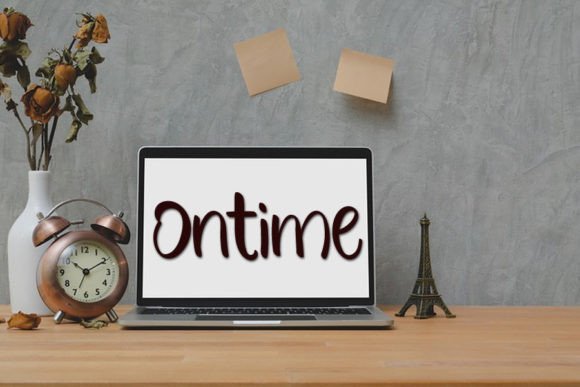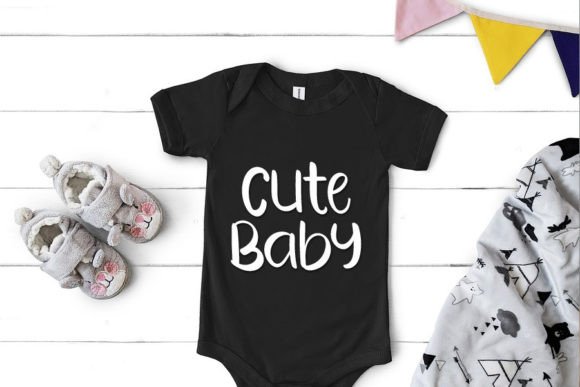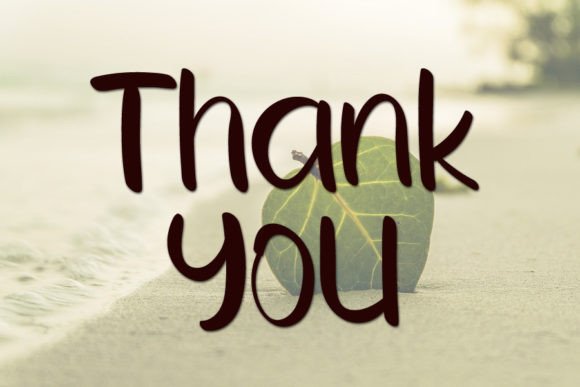
Beach Holiday Font
About Beach Holiday Font
A Charming and Elegant Handwritten Font
The Beach Holiday Font is a charming and elegant handwritten typeface that adds a personal and stylish touch to any design. With its smooth curves and graceful strokes, it’s perfect for a variety of creative projects. Whether you’re designing wedding invitations, logos, greeting cards, or business cards, the gives your work a timeless, sophisticated appeal.
Perfect for Wedding Invitations and Special Occasions
If you’re working on wedding invitations, thank you cards, or any other special event stationery, the is an excellent choice. Its beautiful, handwritten design ensures that your invitations feel unique, personal, and memorable. Whether it’s for a wedding, anniversary, or birthday celebration, this font will make your designs stand out with elegance and charm.
Ideal for Logos and Branding
The Beach Holiday Font is perfect for creating logos and branding materials. Its handwritten style offers a distinct and timeless look, making it ideal for businesses looking to convey a sense of elegance and creativity. Whether you’re designing a company logo, brand name, or product packaging, this font ensures your brand identity stands out with a sophisticated, personalized touch.
Great for Greeting Cards and Personalized Messages
The Beach Holiday Font works wonderfully for creating greeting cards, thank you notes, and holiday messages. Whether you’re designing cards for Christmas, Valentine’s Day, or any other occasion, this font brings a warm, inviting touch to your messages. Its legible yet artistic design makes it perfect for both casual and formal messages, ensuring your cards feel personal and special.
Versatile for Multiple Design Applications
The Beach Holiday Font is highly versatile, making it suitable for a wide range of design applications. Whether you’re working on flyers, posters, website headers, business cards, or social media graphics, this font adapts beautifully to various projects. Its neat, handwritten style adds a sophisticated, timeless feel to both digital and print media, ensuring your designs look polished and cohesive across all platforms.
Elegant, Timeless, and Legible
Despite its elegant design, the Beach Holiday Font remains legible and easy to read. Its smooth and flowing strokes ensure your text is clear, even when used for longer passages or smaller sizes. Whether you’re creating headlines, captions, or full body text, this font maintains its beauty and readability across various design needs.
Add Charm and Elegance to Your Designs with Beach Holiday Font
If you’re looking for a charming, elegant, and timeless handwritten font to enhance your designs, the Beach Holiday Font is the perfect choice. Whether you’re working on wedding invitations, logos, thank you cards, or social media posts, this font adds a personal touch that elevates your work. Make your designs stand out with the and create spectacular, memorable projects that leave a lasting impression.